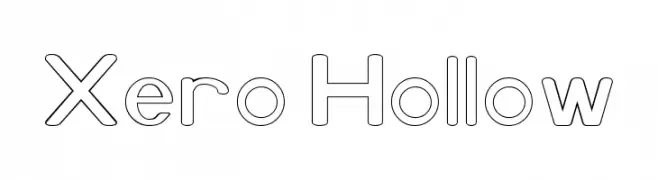
A bold, distressed font with an eroded, industrial look.
A hollow, decorative script-like font with bold outlines and artistic flair.
A decorative and mystical font with bold, flowing characters and unique embellishments.
A mysterious, hollow font with an ancient, coded appearance.
A bold, italic font with smooth, rounded edges and a modern slant.
A sleek, modern italic font with smooth curves and consistent stroke width.
A modern, hollow sans-serif font with clean, outlined characters.
A bold, rounded sans-serif font with smooth curves and uniform strokes.
A modern sans-serif font with rounded edges and uniform strokes.
A modern, italicized hollow font with smooth curves and rounded edges.